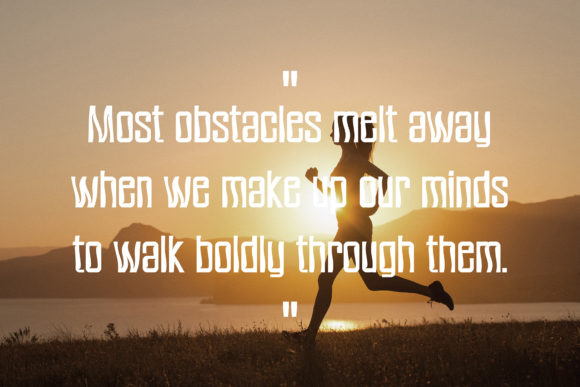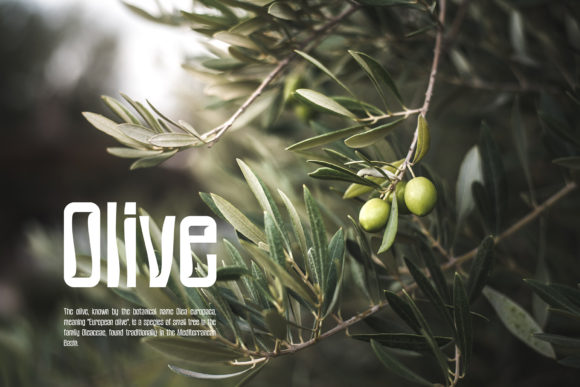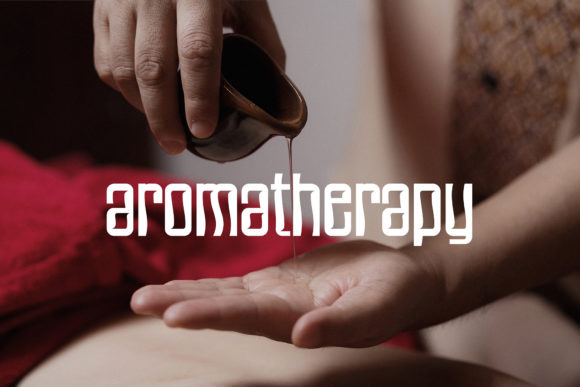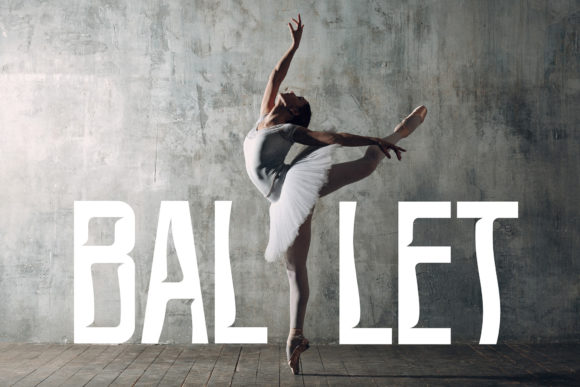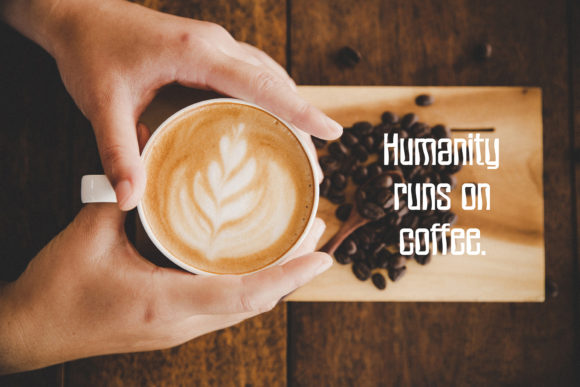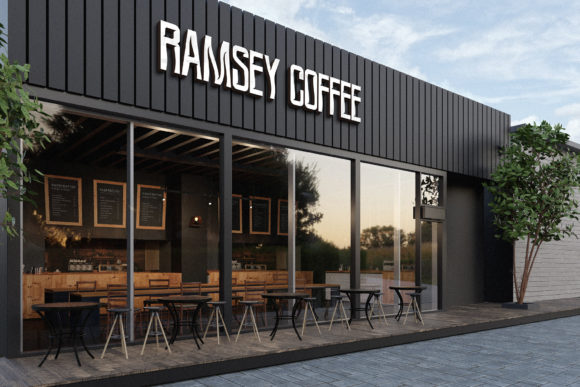
Introduction to Ramsey Font
Ramsey is a cool, assertive yet whimsical display font.
It can be used for various designs that require a wavy, unique touch Add it confidently to your projects, and you will love the results.
Key Features of Ramsey Font